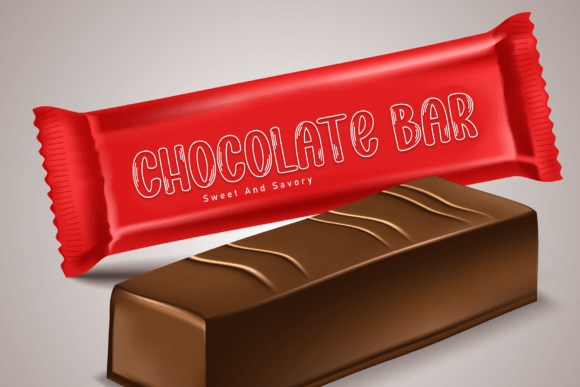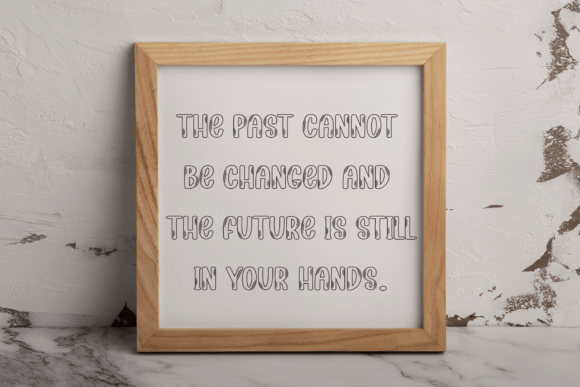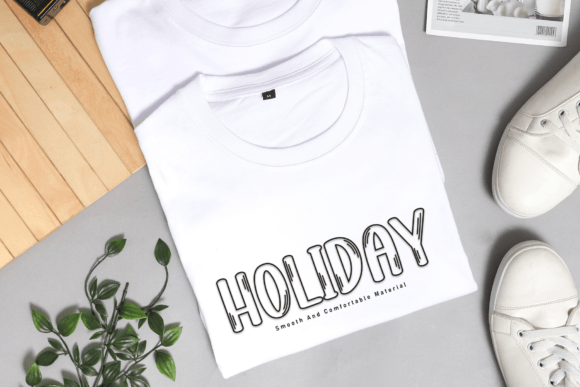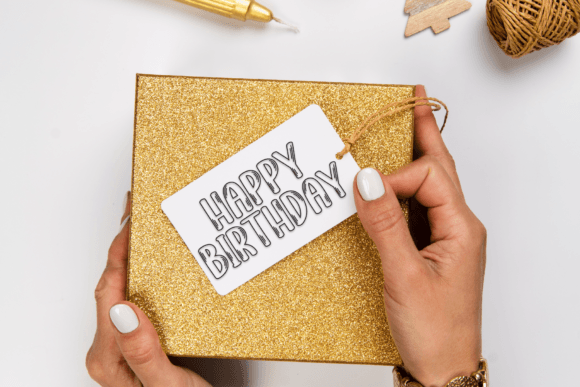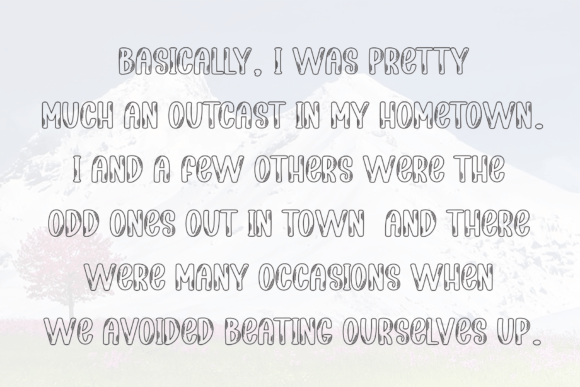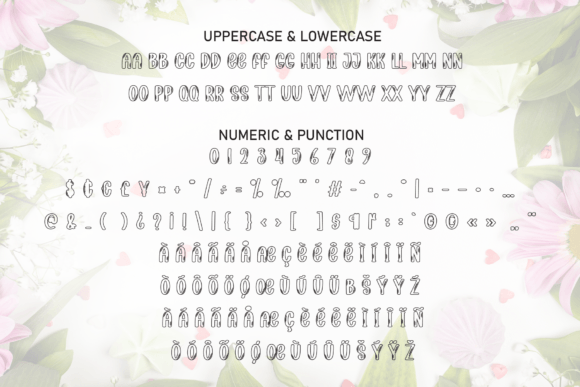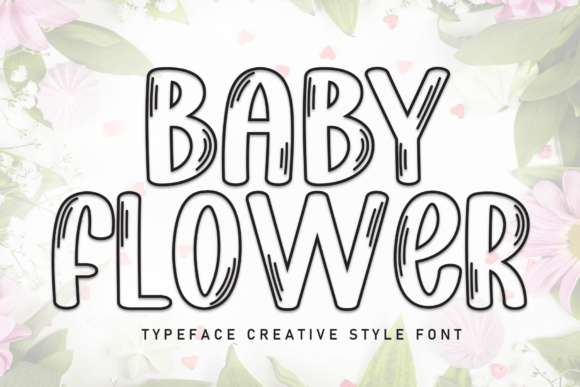
Bring a Touch of Whimsy to Your Designs
Have you ever stared at a blank canvas, wondering how to infuse your project with a dash of personality? You know, that elusive spark that turns a good design into a great one? For designers, finding the right font can be the key to unlocking that magic. And that’s exactly where the Baby Flower Font comes in – a delightful display font designed to add a playful twist to your creative projects.
This charming font is perfect for designers looking to add a touch of whimsy to their work. With its adorable style and versatility, the Baby Flower Font is a valuable asset for any designer looking to take their projects to the next level. Whether you’re creating a children’s book, a wedding invitation, or a social media campaign, this font is sure to bring a smile to your audience’s faces.
Baby Flower Font Key Features
- Unique Characteristics: Baby Flower Font features a unique, hand-drawn design with intricate details, giving it a distinctive and whimsical feel.
Baby Flower Font Review
As a designer, I was initially drawn to the Baby Flower Font due to its whimsical and delicate appearance. The ✨ font’s hand-drawn quality gives it a unique charm that is perfect for projects that require a touch of elegance and playfulness.
Here are some of the things that work well with this font:
- ✨ Unique and whimsical appearance: The Baby Flower Font’s hand-drawn quality makes it stand out from more generic fonts.
- ✨ Versatile: This font can be used for a variety of projects, from children’s books to wedding invitations.
- ⚠️ Limited character set: The Baby Flower Font has a limited character set, which may not be suitable for projects that require a wide range of characters.
- ⚠️ Not ideal for body text: The font’s delicate appearance makes it less suitable for body text, as it may be difficult to read at smaller font sizes.
Overall, I think the Baby Flower Font is a beautiful and unique addition to any designer’s toolkit. While it may have some limitations, its versatility and high-resolution quality make it a great choice for a variety of projects.
To get the most out of Baby Flower Font, use it in conjunction with pastel colors and delicate graphics to create a whimsical and feminine design.
Baby Flower Font is commonly used for:
- Children’s birthday invitations and party decorations
- Wedding stationery and invitations
- Blog and social media graphics